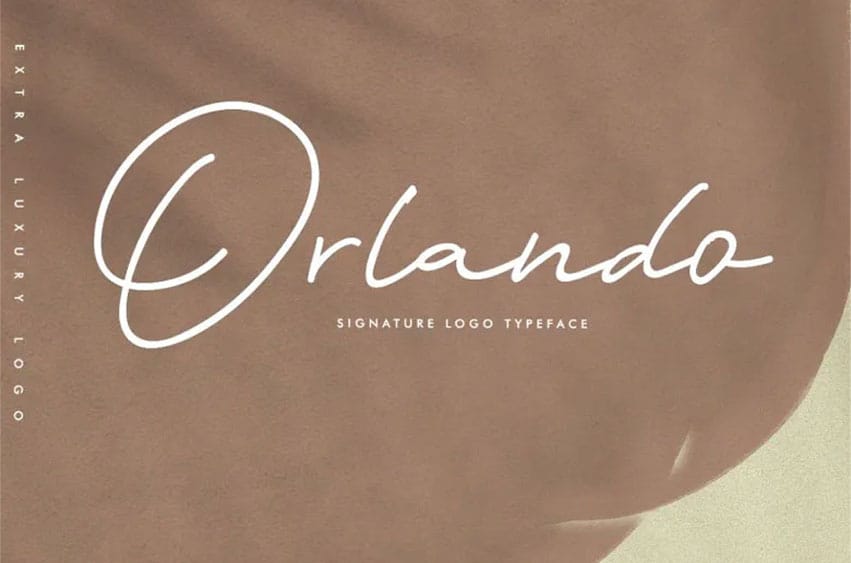
Orlando Font is a script typeface that speaks elegance, luxury, and leisure in equal measure but in a contemporary, elegant and modern way. Most popular for the line that you add on your work to make it look more appealing or impressive. Orlando Signature also has a ligature to enhance the quality to make it unique compared to other fonts.
Orlando signature font can be used in logos, projects and branding, mockups, packaging, headlines for websites and posters, clothing, greeting cards, wedding invitations etc. Orlando signature font provides a royal logo that can be easily editable.